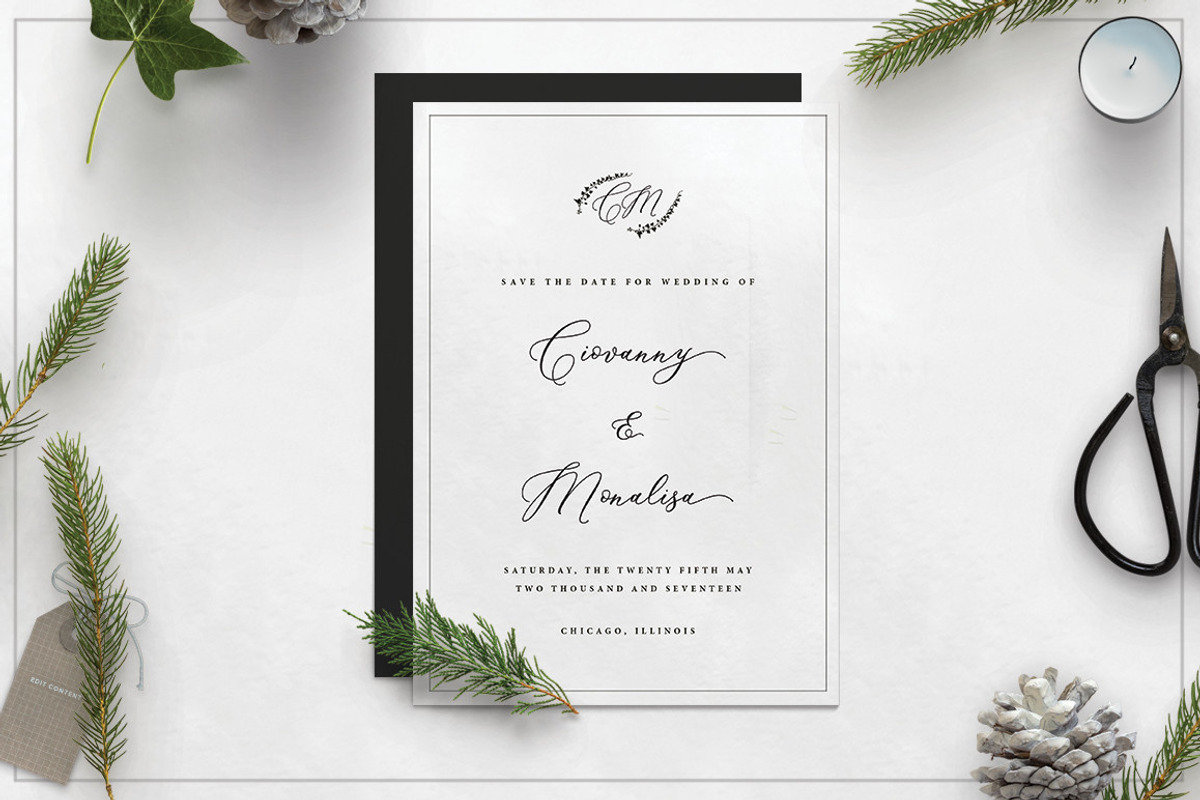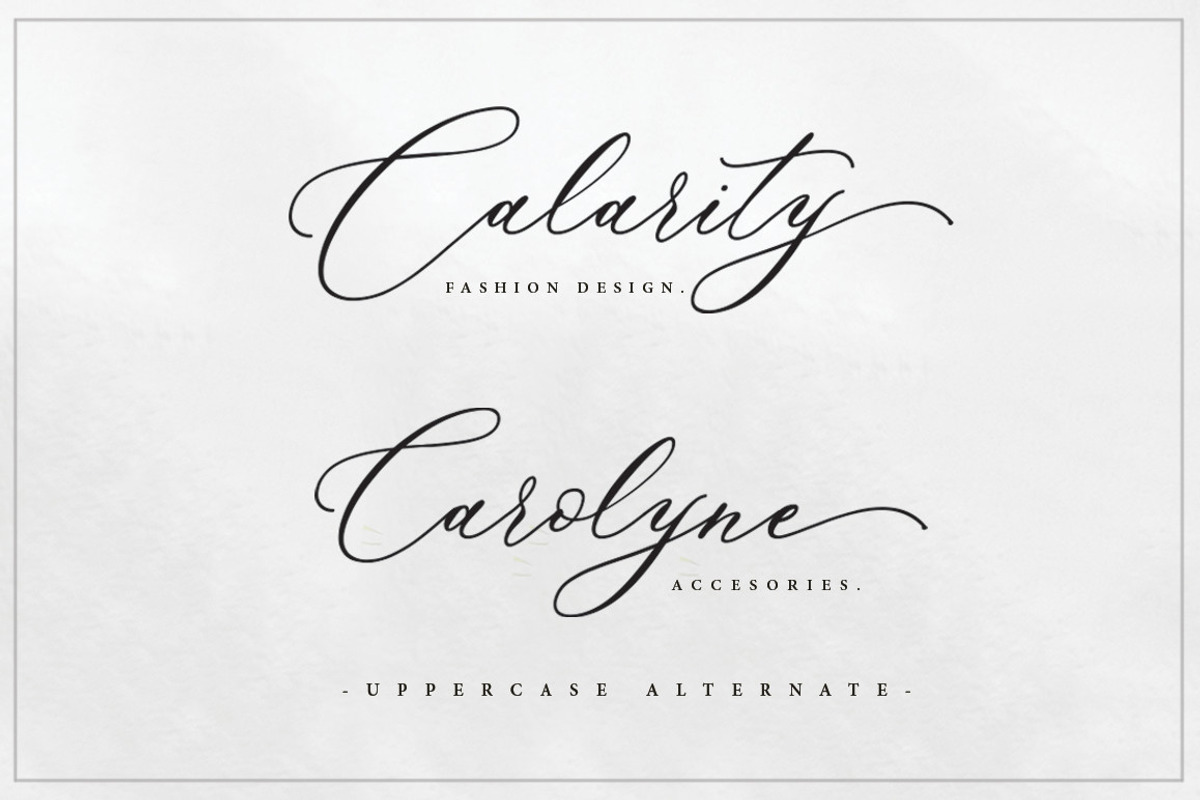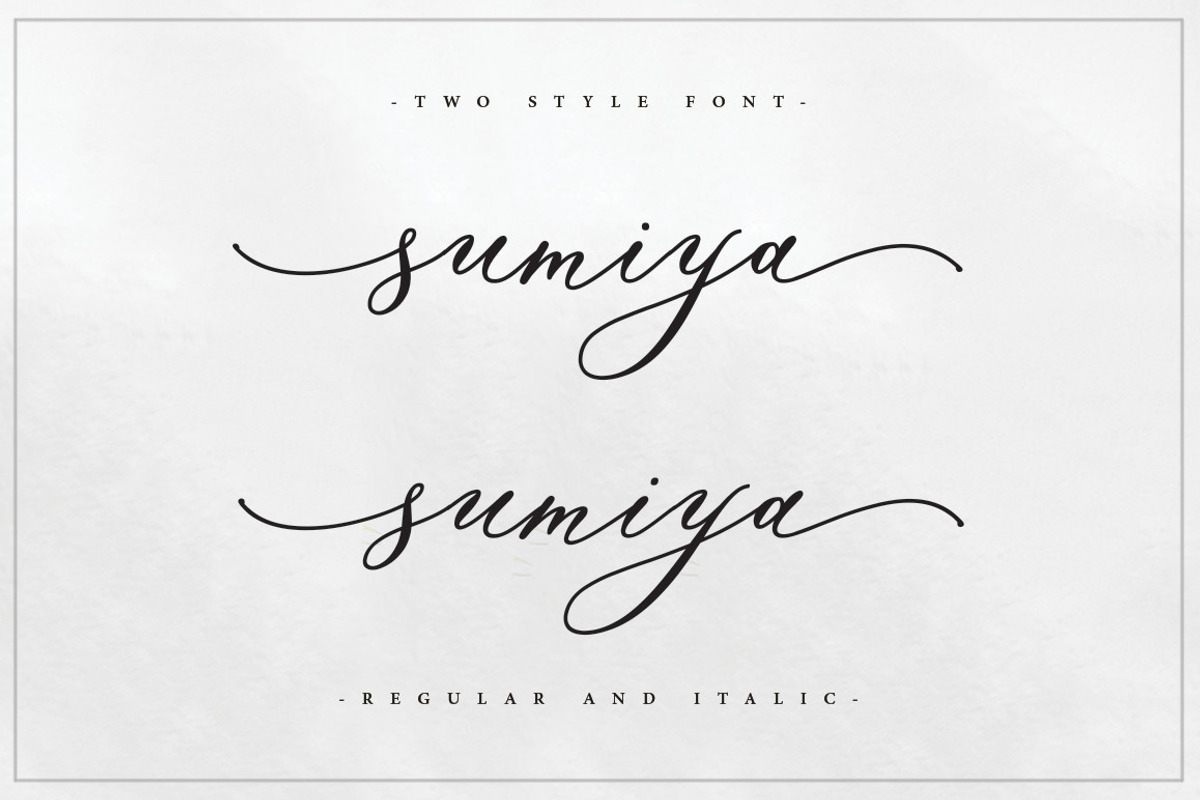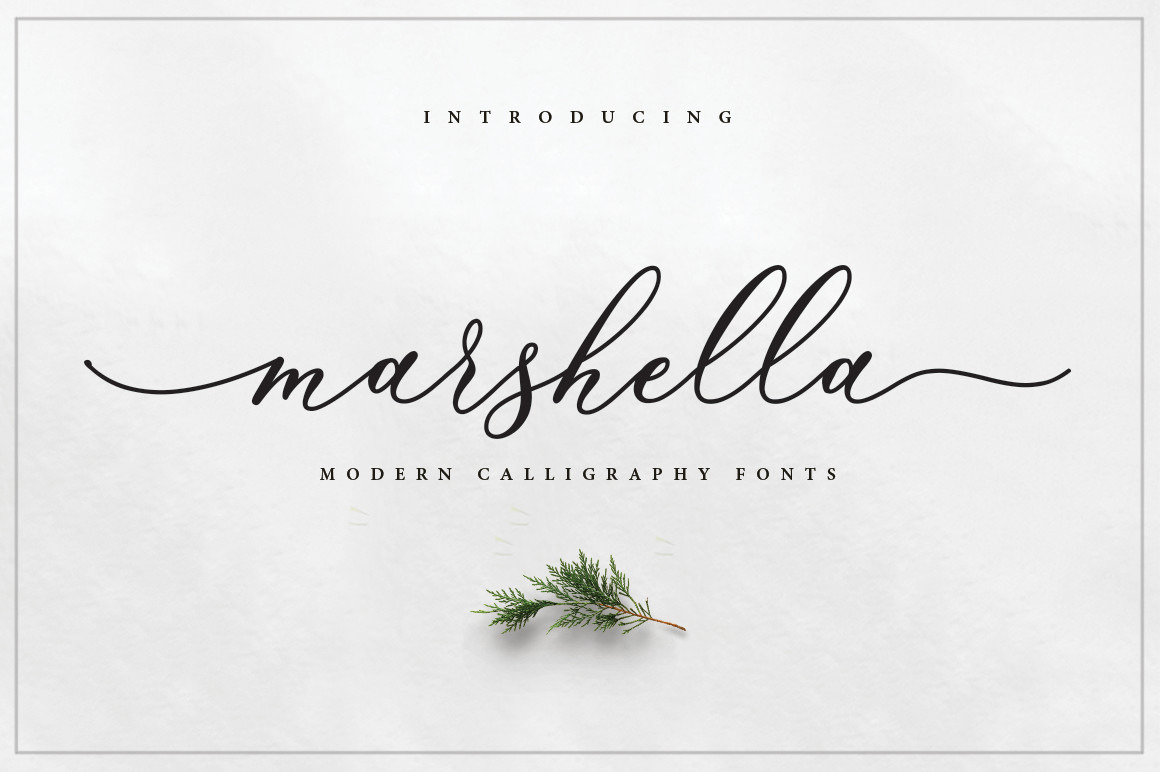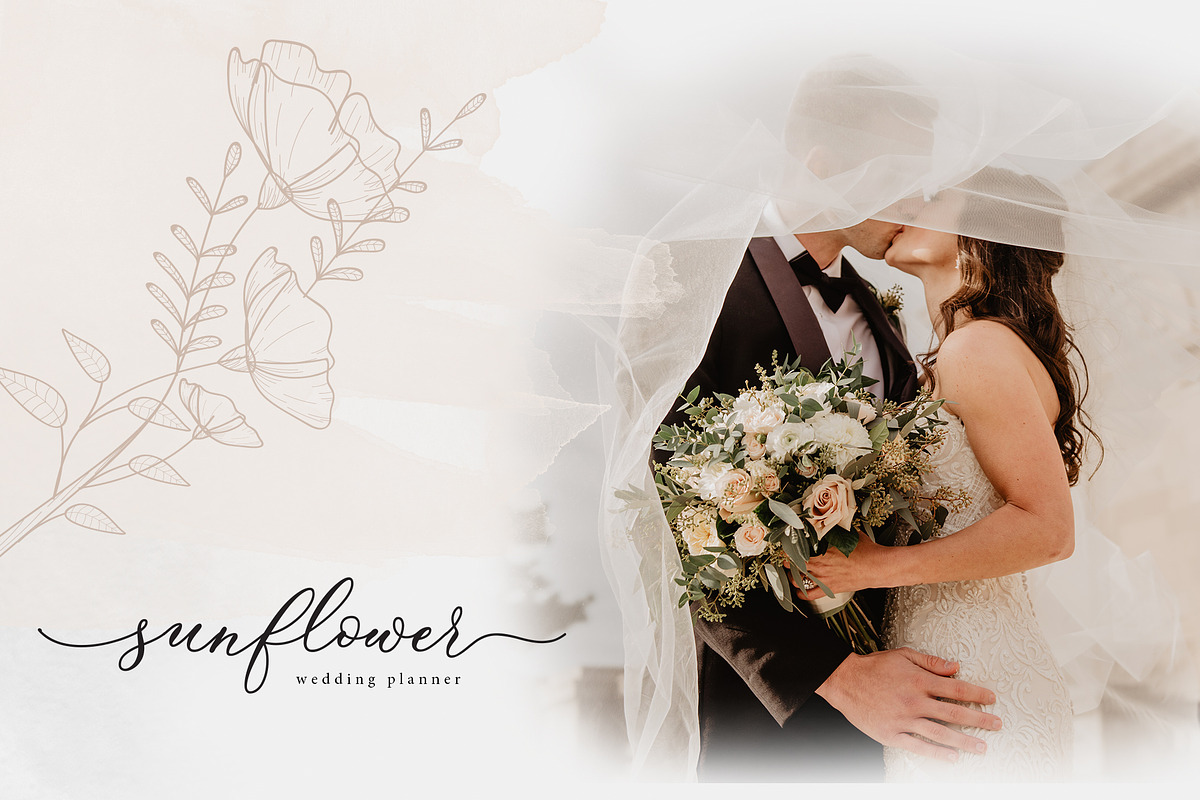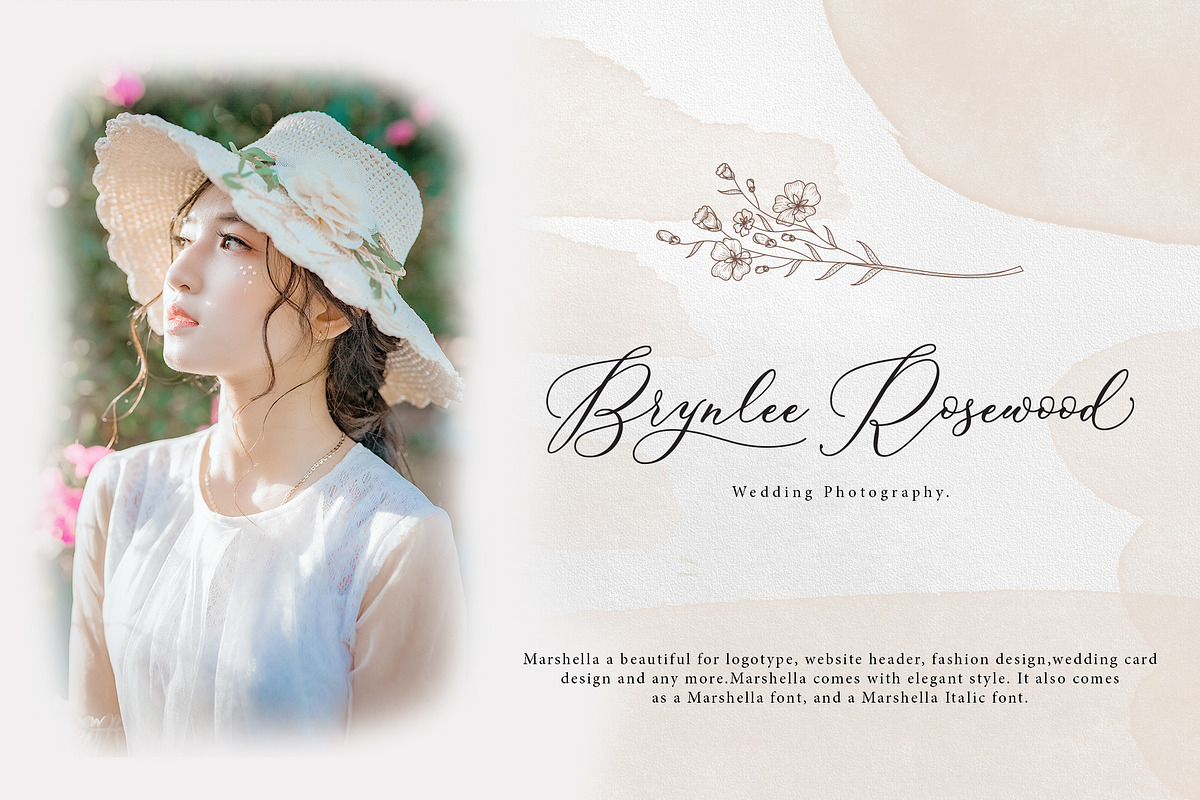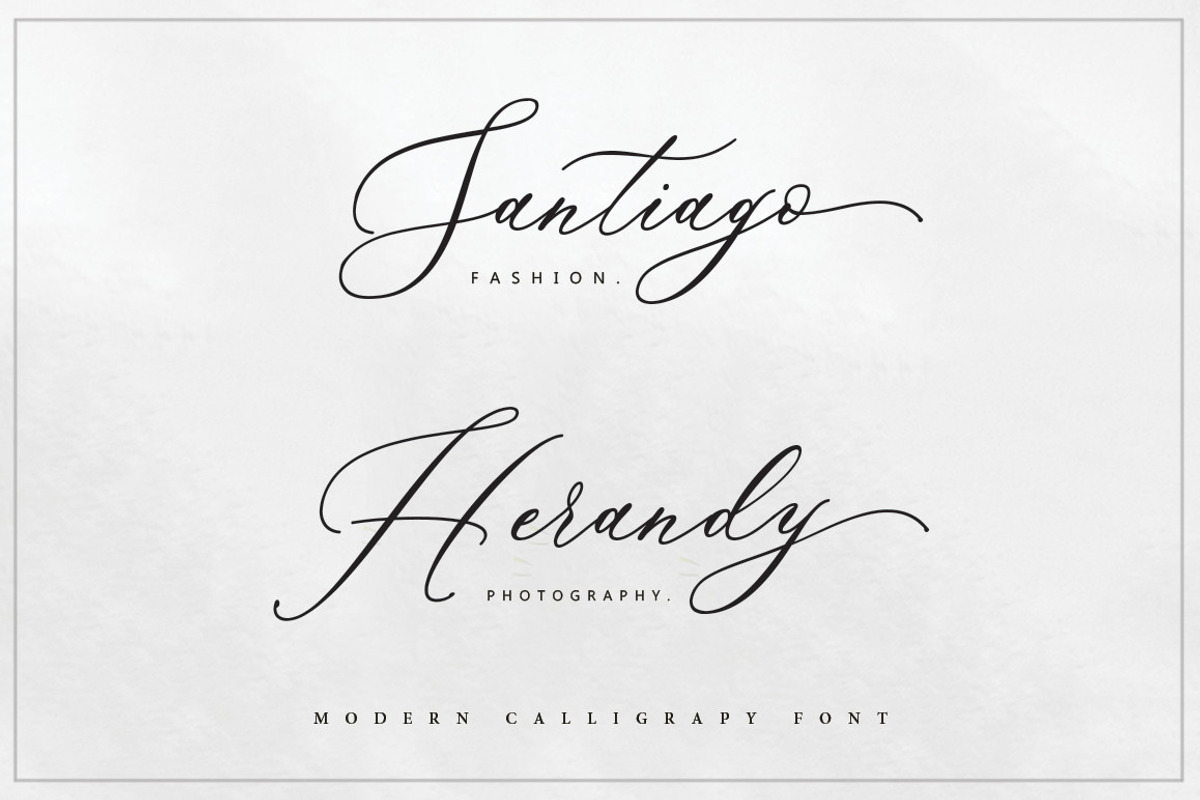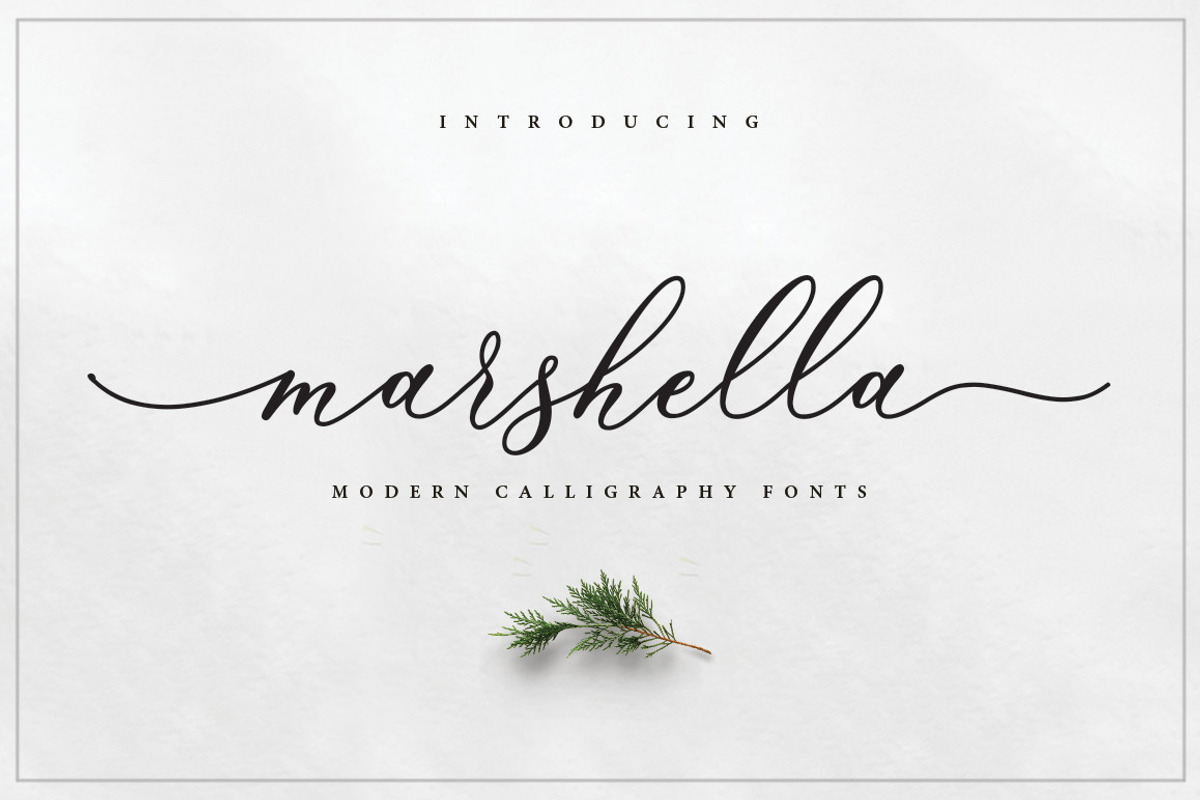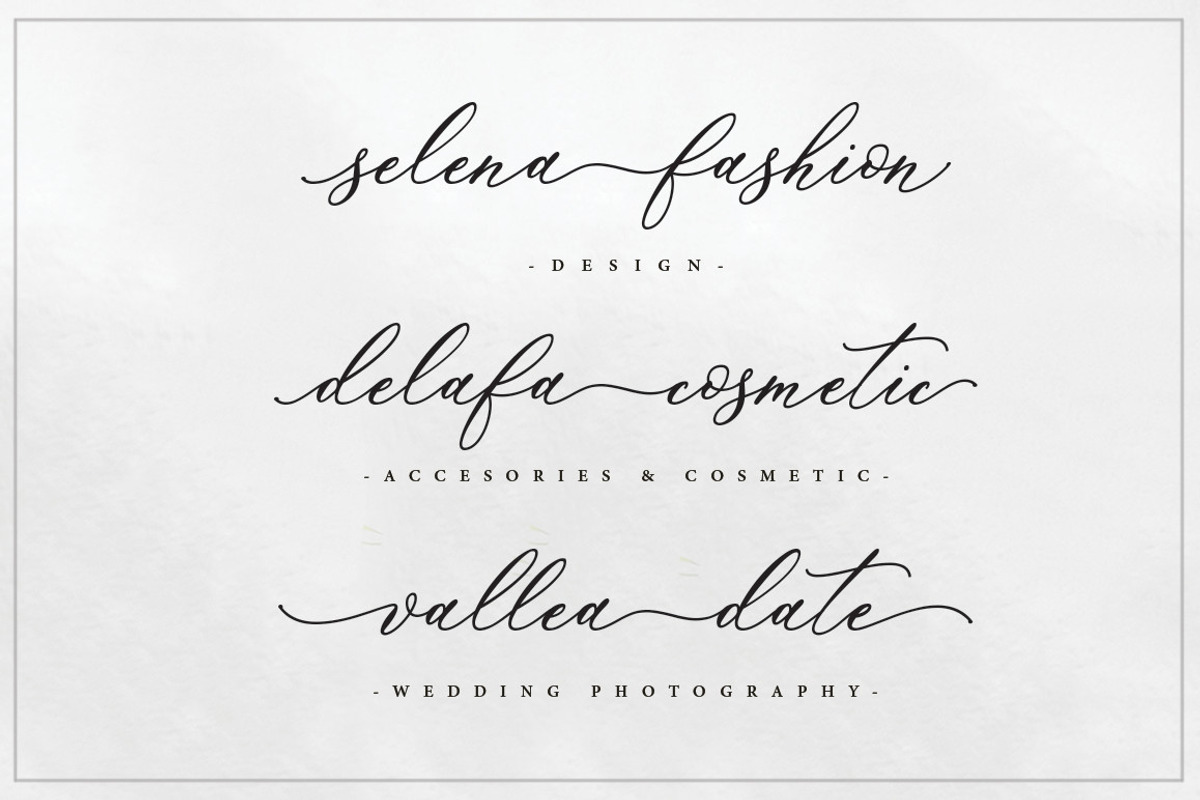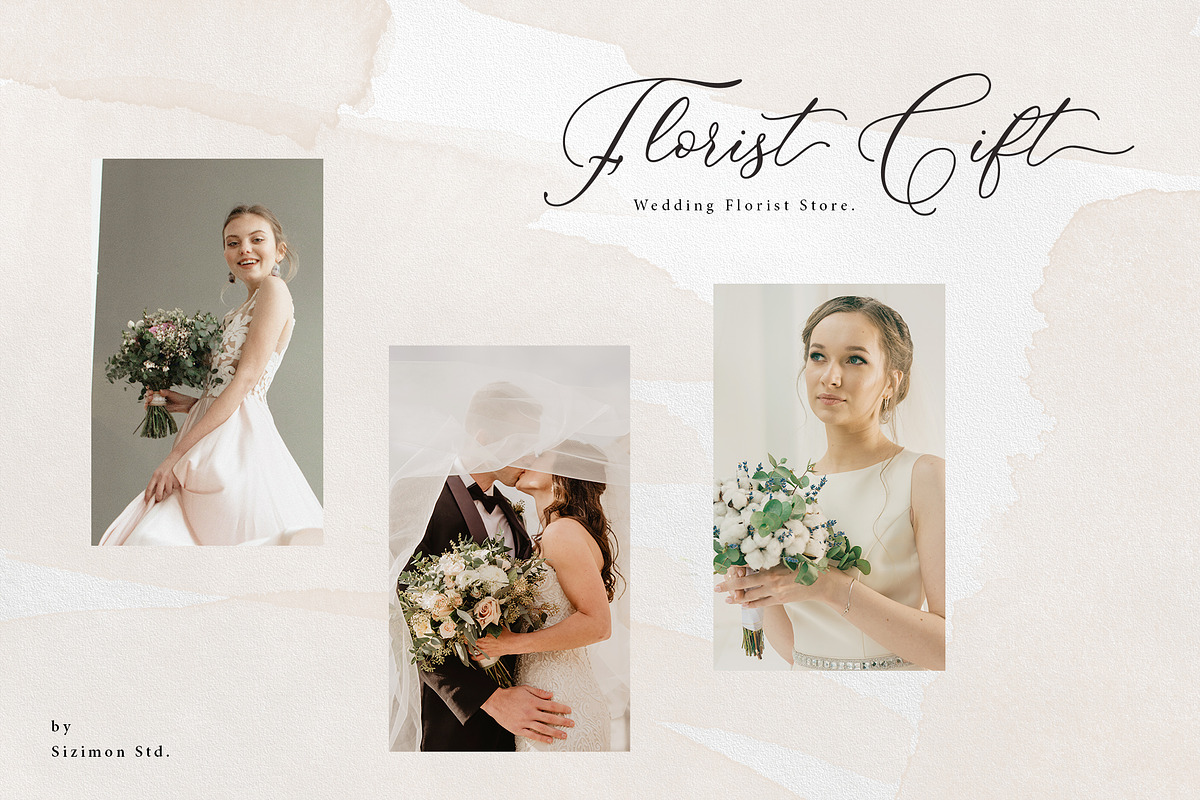
Marshella | Wedding Calligraphy Font
Marshella Script is a modern calligraphy font. Marshella a beautiful for logotype, website header, fashion design,wedding card design and any more. Santyana comes with elegant style, It also comes as a Marshella font, and a Marshella Italic font. It contains a full set of lower & uppercase letters, a large range of punctuation, numerals, and multilingual support.
- 200+ Alternates!
- Multilingual support : (Danish,Finnish,English,,Spanish,Dutch,German,Icelandic,Italian,Norwegian,Portuguese,Indonesian, Swedish)